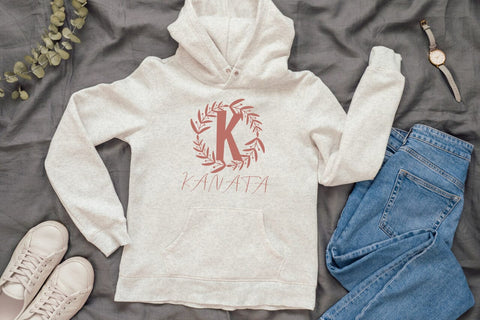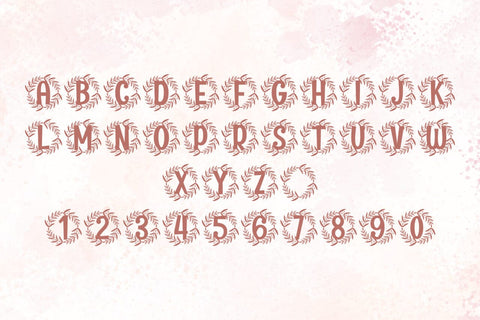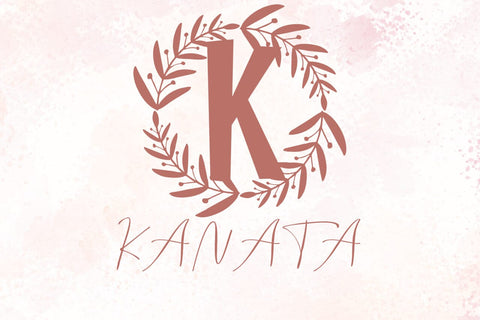
Clarest Monogram Font
Meet Clarest, the Monogram Font
Clarest Monogram Font turns simple initials into crisp, elegant emblems. Lines feel smooth and balanced, while open counters keep tiny tags readable. Use it for wedding suites, boutique logos, keepsake gifts, and premium packaging. Moreover, Clarest pairs beautifully with modern serifs and clean sans fonts, so your layouts look refined without extra work.
Where the monogram font shines
Set single, double, or triple initials for logos, seals, menus, and place cards. Then frame them with laurel rings, oval borders, or fine rules to echo the graceful forms. Since proportions favor symmetry, polished compositions come together in minutes. As a result, your thumbnails stand out and your listings stay consistent across products. Plus, Clarest scales smoothly from jewelry cards to venue signage.
Fast setup, polished results
Design tips for Clarest Monogram
Keep initials large and let white space breathe. Pair the headline monogram with a quiet serif or humanist sans for body text. Meanwhile, add micro shadows, a thin inner stroke, or a delicate frame for depth. Because the structure is airy, textured paper and metallic accents raise perceived value. However, keep copy short so the monogram remains the hero.
Select stylistic alternates (key letters)
Curves tuned for foil, letterpress, engraving, laser, and clean vinyl cutting